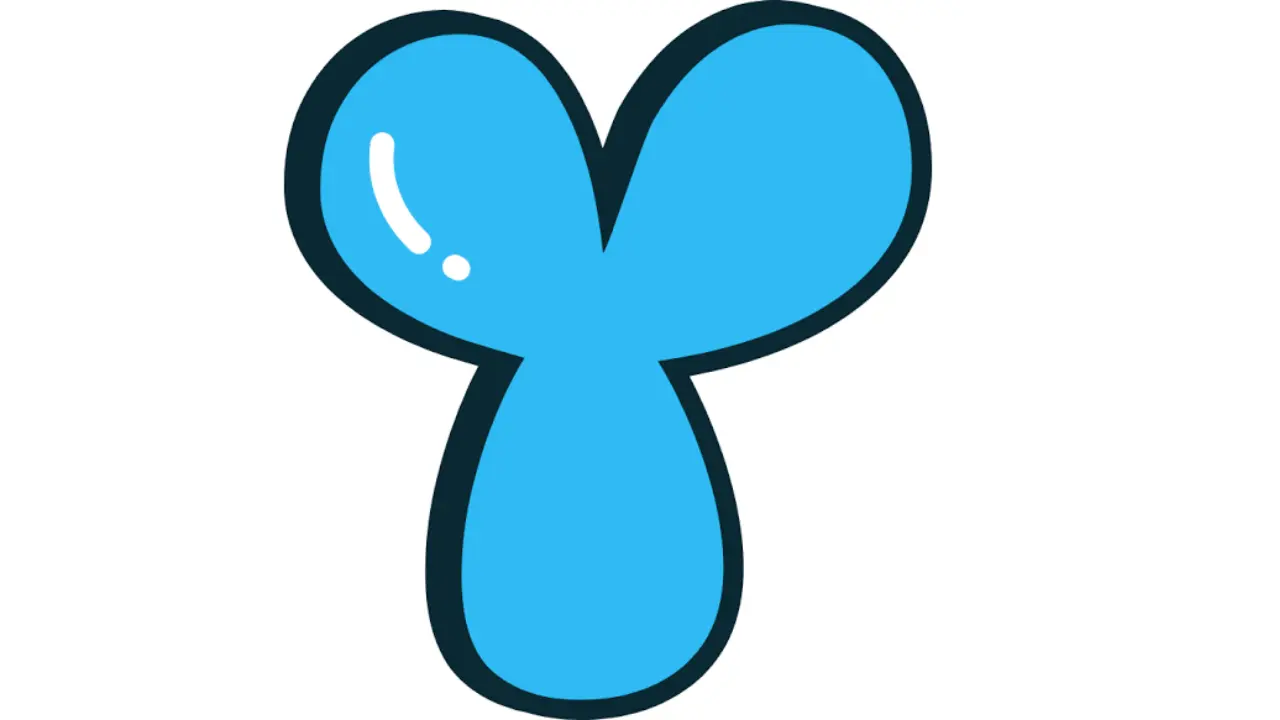
Y in Bubble Letters Simple Styles and Drawing Tips
Creating y in bubble letters is a fun way to turn a simple alphabet letter into bold and creative artwork. Bubble lettering uses thick, rounded shapes that make letters look soft, playful, and eye-catching. Students, artists, teachers, and craft lovers often use this style for posters, notebooks, greeting cards, school projects, and digital designs.
The letter Y works especially well in bubble style because its three main strokes create plenty of space for outlines, shadows, colors, and patterns. You can keep the design simple or turn it into detailed artwork with decorations.
What Does Y in Bubble Letters Mean?
A y in bubble letters design changes the normal letter Y into a larger, rounded version. Instead of using thin straight lines, you create thick shapes around each part of the letter. The finished result looks inflated, almost like a balloon.
Bubble lettering belongs to decorative hand lettering. It does not require advanced drawing skills. Beginners can start with a basic pencil sketch and slowly build the thicker outline around it.
The style also gives you freedom to experiment. You can create uppercase or lowercase versions, use different colors, or add creative effects inside the letter.
How to Draw Y in Bubble Letters Step by Step
Drawing y in bubble letters becomes easy when you start with a simple structure. First, lightly draw a normal capital Y with a pencil. Make the letter large enough to leave room for the bubble outline.
Next, draw a rounded line around each stroke of the Y. Avoid sharp corners because bubble letters usually have smooth edges. Connect the outlines carefully where the upper arms meet the lower stem.
Erase the original guide lines once you feel happy with the shape. You should now have a thick, hollow bubble-style Y.
Use a black marker or dark pencil to trace the final outline. You can then add colors, shadows, patterns, or other details.
Uppercase and Lowercase Bubble Y Styles
You can create both uppercase and lowercase versions of the letter Y. An uppercase Y usually looks stronger and more balanced because its wide upper arms provide plenty of drawing space.
A lowercase bubble Y can look softer and more playful. Its curved tail also gives you an opportunity to add extra decorative elements.
When practicing y in bubble letters, try both versions. This helps you understand how rounded outlines can change the look of different letter structures.
You can also make the uppercase letter more suitable for titles while using lowercase letters for names, quotes, and decorative words.
Creative Ways to Decorate Bubble Letter Y
Once you create the basic outline, decorating the letter becomes the most enjoyable part. Colors can completely change the mood of your design.
Bright shades such as yellow, pink, orange, green, and blue create a cheerful style. Darker colors can produce a stronger or more dramatic appearance.
You can also fill your letter with stripes, stars, dots, hearts, flowers, clouds, or geometric patterns. A y in bubble letters design can even include small illustrations related to a theme.
For example, you could create a space-themed Y with stars and planets. You could also design a nature-inspired version using leaves and flowers.
Adding Shadows and 3D Effects
Shadows make bubble letters look deeper and more professional. You do not need complicated drawing techniques to create this effect.
Choose one direction for your imaginary light source. Then add a darker shape along the opposite side of the letter. Keep the shadow direction consistent throughout the design.
A simple drop shadow behind y in bubble letters can make the letter appear as if it rises above the page.
You can also create a 3D look by drawing short lines from the original letter toward one direction. Join these lines to create visible sides. Darken those sections slightly to increase the sense of depth.
Best Uses for Bubble Letter Y Designs
Bubble letters can work in many creative projects. Children often use them for school assignments because they are easy to draw and decorate. Teachers can also use them for classroom displays, alphabet activities, and educational posters.
Artists may use y in bubble letters for sketchbooks, graffiti-inspired designs, handmade cards, or typography practice. Digital designers can recreate the same style using drawing apps and graphic design software.
The design also works well for names that begin with Y. You could create personalized artwork for names such as Yasmin, Yusuf, Yara, or Yvonne.
ProjectBubble Y Idea
School posterLarge colorful uppercase Y
Birthday cardY with balloons and stars
Notebook coverPattern-filled bubble Y
Digital artwork3D or gradient-style Y
Whether you need the letter for a school project, poster, greeting card, notebook, or digital design, bubble lettering gives you many possibilities. Keep practicing different shapes and decorative styles, and your bubble letter Y designs will become smoother, cleaner, and more creative over time.